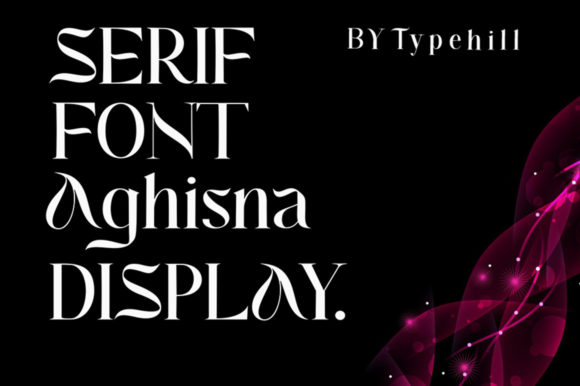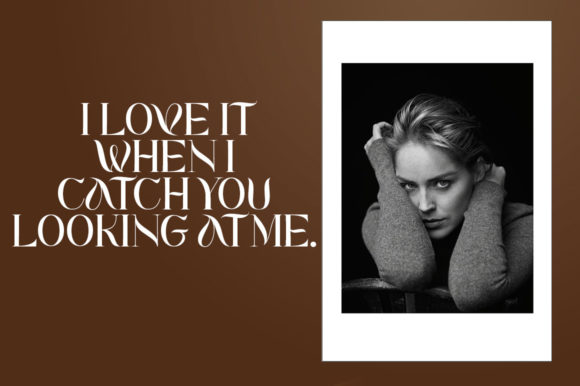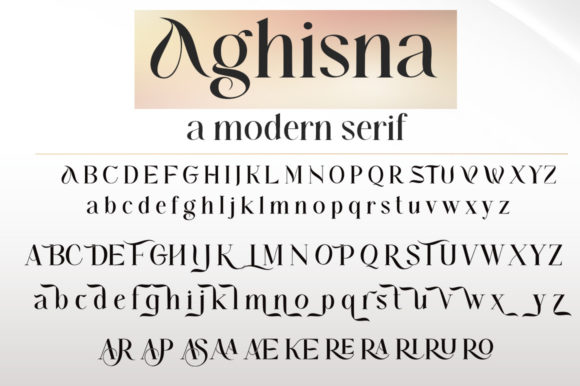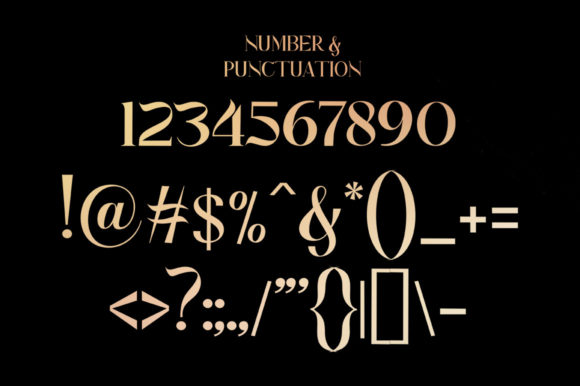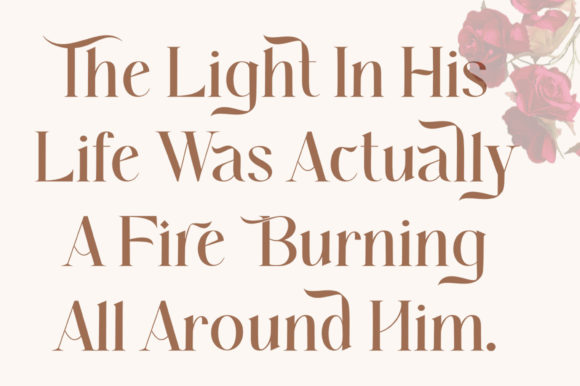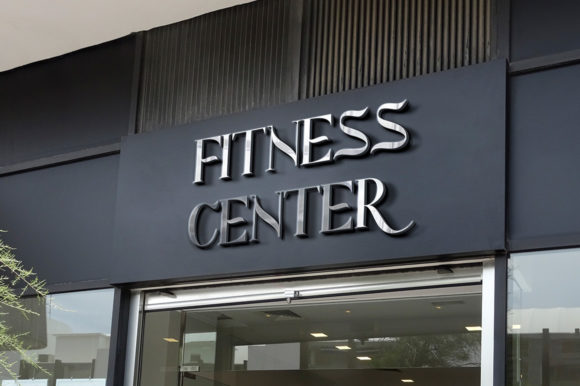
Introducing Aghisna Font: Elevate Your Designs with Elegance and Style
Are you tired of using the same old fonts in your designs? Look no further! Aghisna Font is here to revolutionize the way you approach typography. This distinct, elegant, and stylish display font is perfect for designers and crafters looking to add a touch of sophistication to their work.
What Makes Aghisna Font Special?
Aghisna Font is not just another font in the sea of typography. It’s a game-changer, and here’s why:
- PUA Encoded: Aghisna Font is PUA (Private Use Area) encoded, which means you can access all the glyphs and swashes with ease. This feature allows you to unlock the full potential of the font and take your designs to the next level.
- Distinct and Elegant: Aghisna Font boasts a unique and elegant design that’s sure to turn heads. Its stylish appearance makes it perfect for a wide range of design projects, from logos and branding to invitations and packaging.
- Highly Versatile: Whether you’re working on a digital project or a print design, Aghisna Font adapts seamlessly to any medium. Its versatility makes it an excellent addition to any designer’s toolkit.
Why Choose Aghisna Font?
With so many fonts available, why should you choose Aghisna Font for your next project? Here are just a few compelling reasons:
- Stand Out from the Crowd: Aghisna Font’s unique design ensures that your work will stand out in a crowded design landscape. Its distinctive style will leave a lasting impression on your audience.
- Elevate Your Design Ideas: Aghisna Font is designed to elevate your design ideas, not limit them. Its elegant and stylish appearance will inspire you to create something truly special.
- Easy to Use: Despite its sophisticated design, Aghisna Font is incredibly easy to use. Its PUA encoding makes it simple to access all the glyphs and swashes, allowing you to focus on creating stunning designs.
Aghisna Font is a perfect fit for designers and crafters who want to add a touch of elegance and style to their work. Here are just a few examples of how you can use Aghisna Font in your designs:
- Logos and Branding: Create a lasting impression with a unique and stylish logo that showcases your brand’s personality.
- Invitations and Stationery: Add a touch of sophistication to your invitations, business cards, and other stationery with Aghisna Font’s elegant design.
- Packaging and Product Design: Make your products stand out on store shelves with eye-catching packaging that features Aghisna Font.
In conclusion, Aghisna Font is a game-changing display font that’s perfect for designers and crafters looking to elevate their designs. Its unique, elegant, and stylish design, combined with its PUA encoding, makes it an excellent addition to any designer’s toolkit. Whether you’re working on a logo, invitation, or packaging design, Aghisna Font is sure to inspire you to create something truly special.
Get Ready to Fall in Love with Aghisna Font
With its outstanding vibe and versatility, Aghisna Font is sure to capture your heart. So why wait? Discover the beauty of Aghisna Font and take your designs to new heights. Get ready to fall in love with this stunning display font and experience the difference it can make in your work.